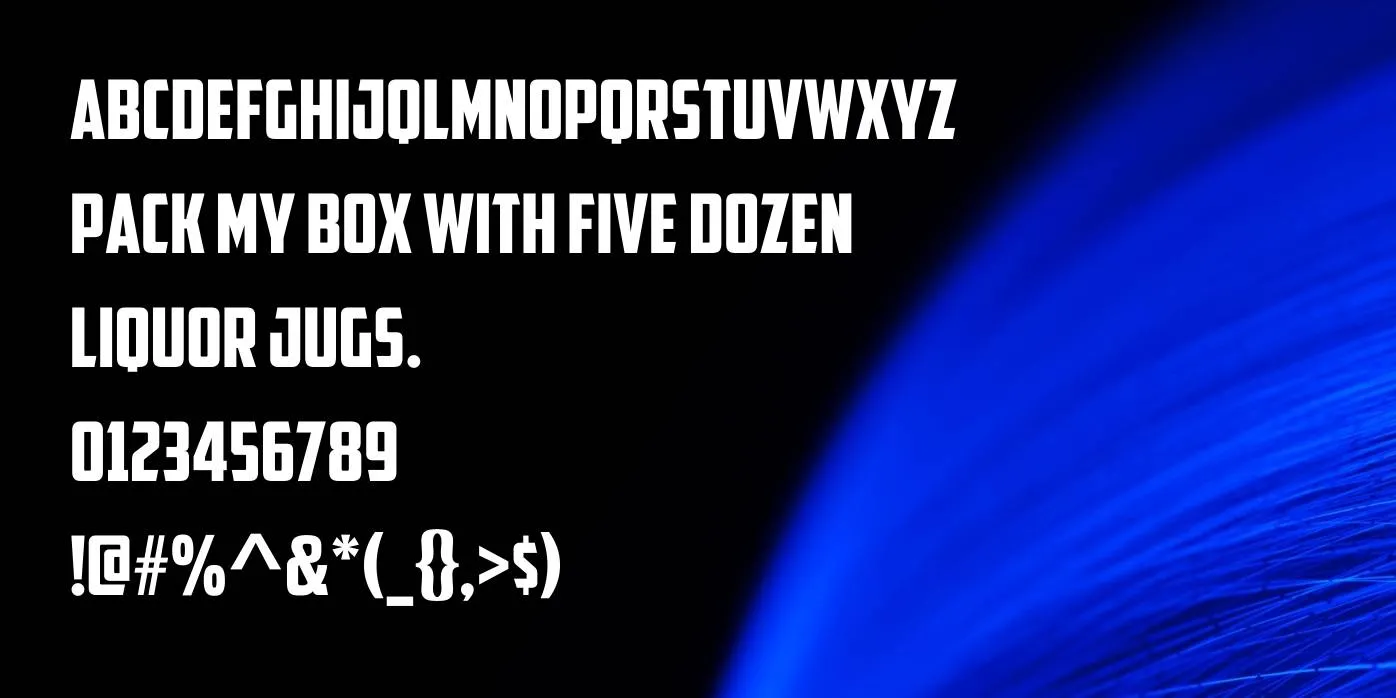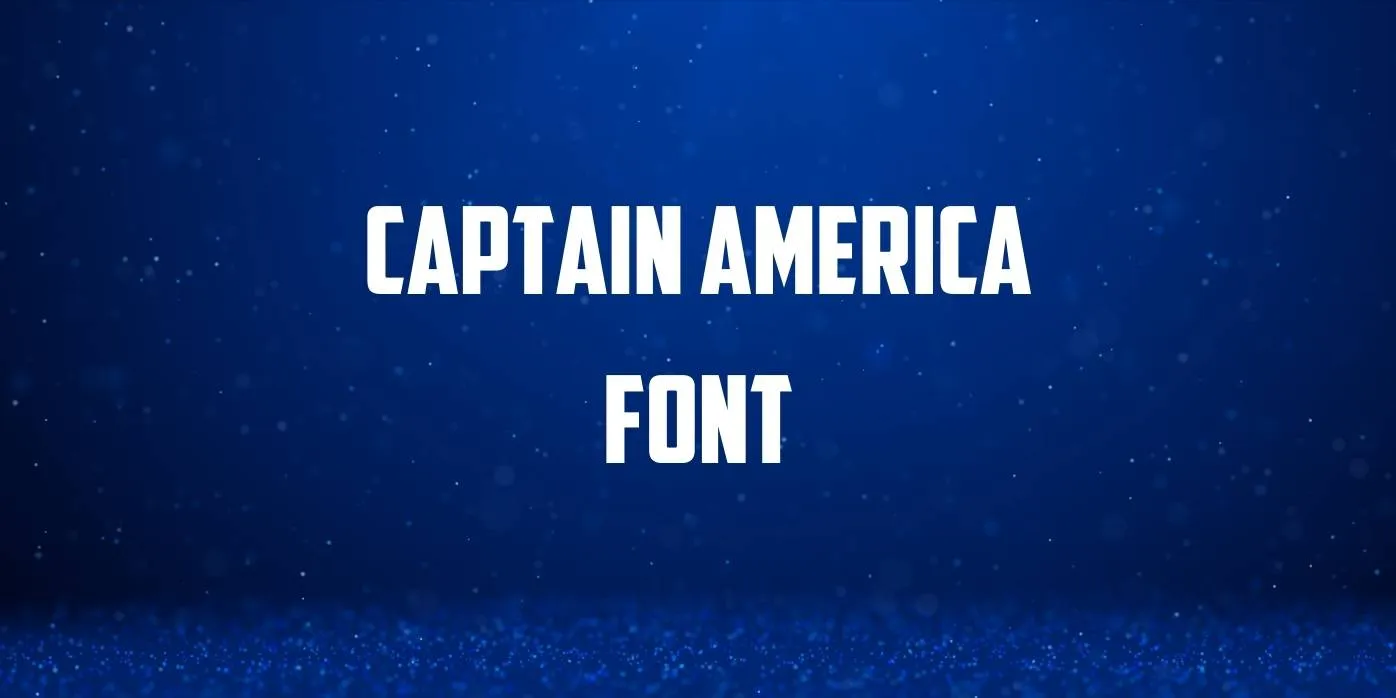
Captain America Font
Introducing the bold and stunning legible typeface with condensed shape and beautiful X-height that is Captain America Font. The designer of this typeface is Fontry and it belongs to a Retro Fonts family. The font has OTF and TTF features and its 2 styles are Free for personal and commercial usage. That you can use in your print or digital, Product or Projects, and many other relative works without any problems.
It has very beautiful styles and weights. Its OTF feature file has OpenType Layout and Postscript Outlines while its TTF feature file has TrueType Outlines and OpenType Layout. And all the style has Uppercase and Lowercase Letters, Numbers, and Special symbols also.  Usage The typeface is well reputed due to its copy and paste functions.
Who designed the Captain America Font? This is the bold and stunning legible typeface with condensed shape and beautiful X-height. The designer of this typeface is Fontry and it belongs to a Retro Fonts family. Can I use Captain America Font in Word application?